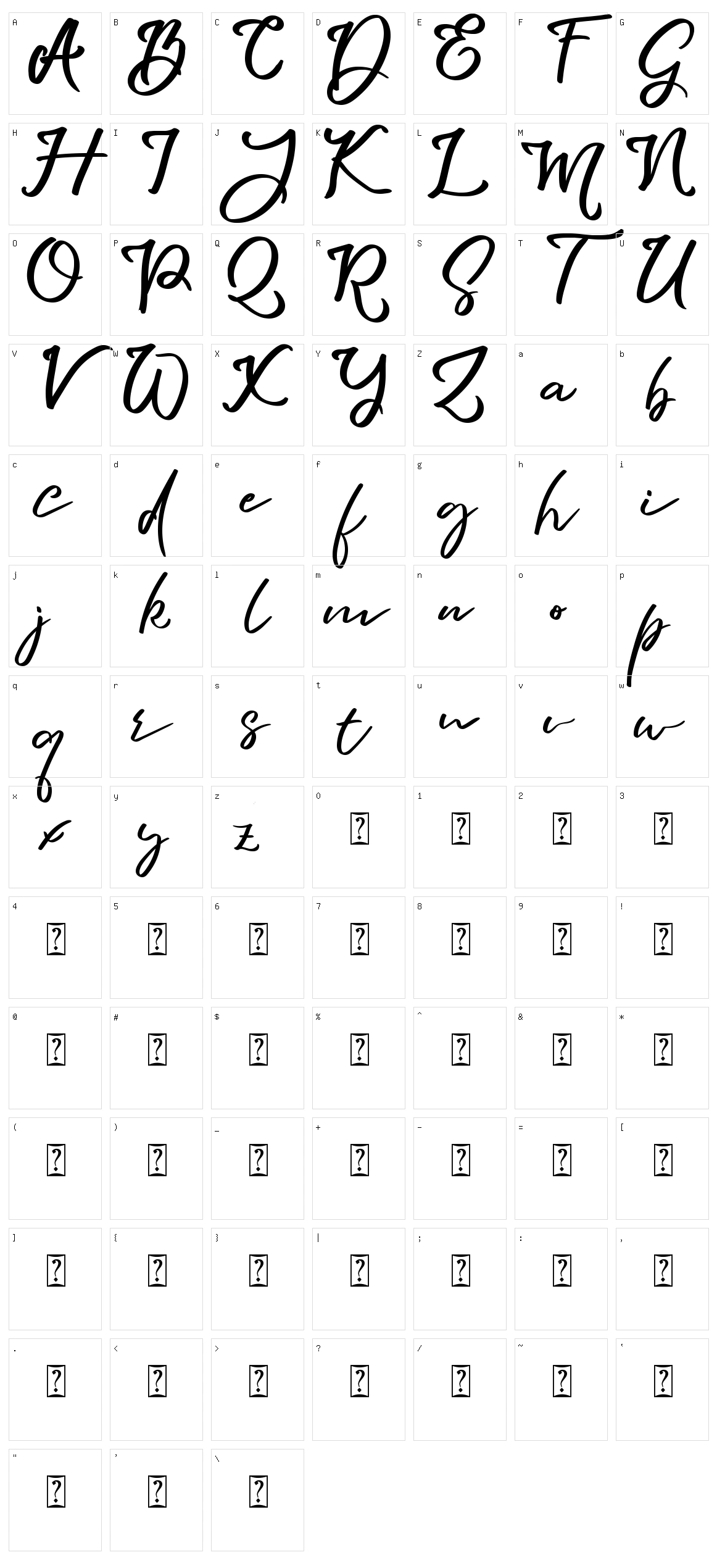
The free font Bunton Island is carefully designed by Andang Prasetyo, showcasing a thoughtful balance of creativity and usability and falls under the Script font style. When you download the ZIP file, it contains only 49.65 KB of font files, making it lightweight and quick to download. Please review the license details below to understand permitted usage and distribution rights. If license information is not available, we recommend using this font for personal projects only or contacting the author directly for commercial usage permissions.